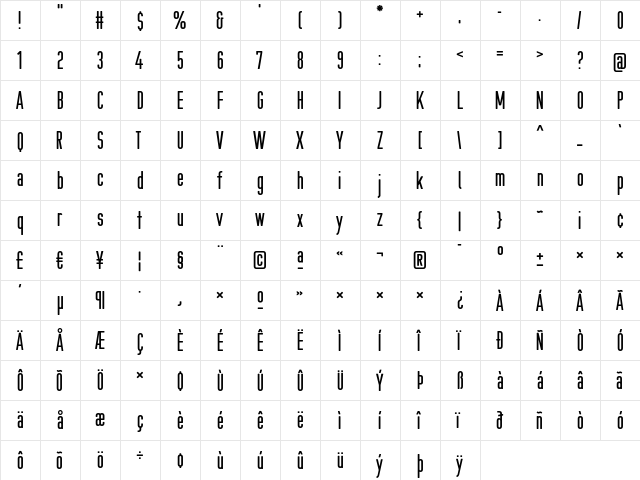
CstBerlinEast Original
Design Context for CstBerlinEast Typeface
CstBerlinEast offers clean, dependable letterforms without strong stylistic allegiance, making it a practical choice for designers who need flexibility.